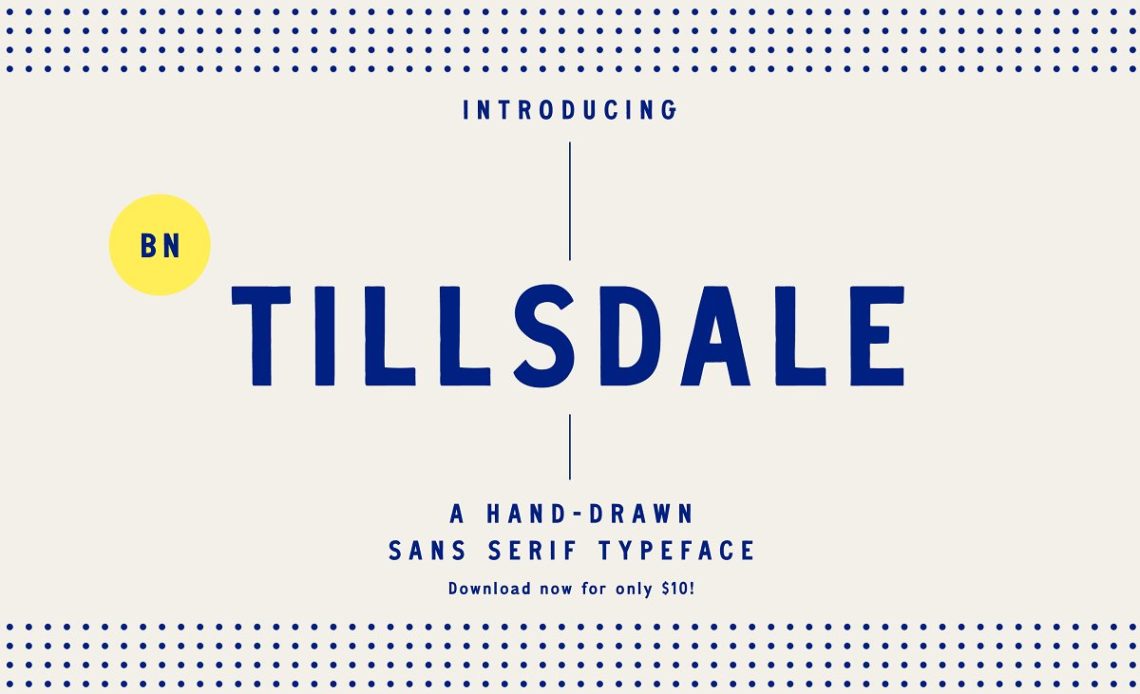
Looking for a versatile and creative font family to elevate your design game? Look no further than BN Tillsdale! Created by the talented Brandon Nickerson, this hand-drawn sans serif font family is the perfect addition to any designer's toolkit.
Featuring 3 weights and a well-balanced semi-condensed form, BN Tillsdale is the best font for small display projects, offering attention to detail that is unmatched by other sans serif fonts. Whether you're creating a unique display layout, a quirky logo design, or even long-form content, BN Tillsdale is the perfect choice.
But BN Tillsdale isn't just functional - it's also full of character and emotion. The hand-drawn style gives each letter a unique personality, perfect for adding a touch of whimsy to any project. And with its clean lines and attention to detail, BN Tillsdale is sure to catch the eye of any viewer.
While BN Tillsdale currently does not contain foreign accents or characters, it still offers a wide range of possibilities for any design project. And with its keyword-rich description, you can be sure that your project will stand out from the crowd.